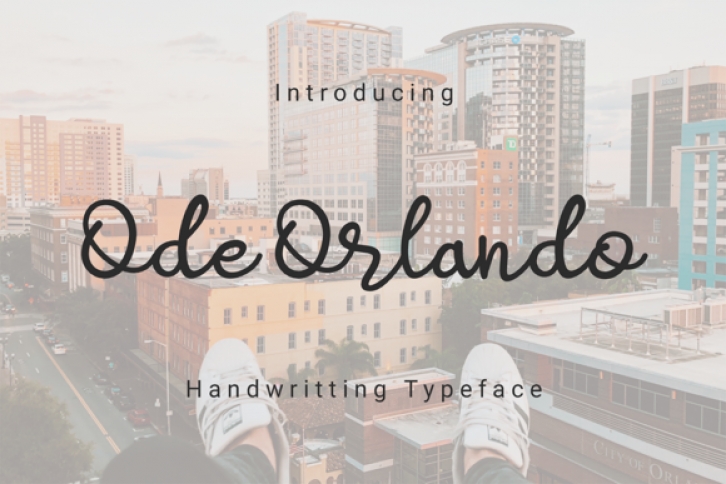
Ode Orlando is a beautiful handwritten font, carefully created with a touch of elegance. It is the perfect font for making original and outstanding designs. Use your imagination and add Ode Orlando to your most favorite projects!